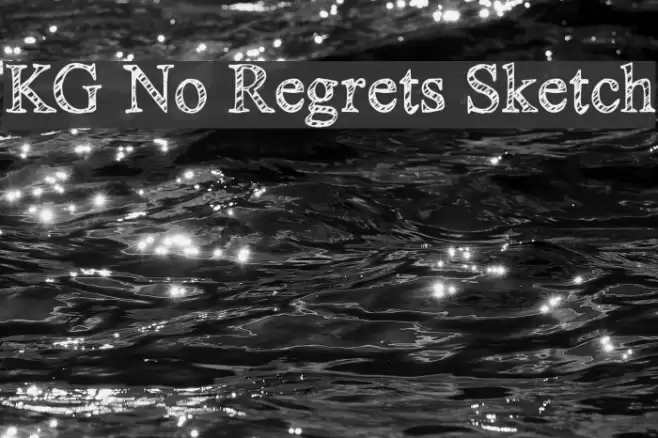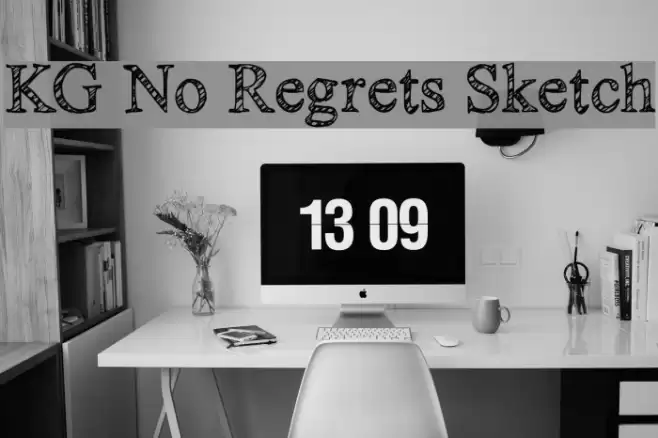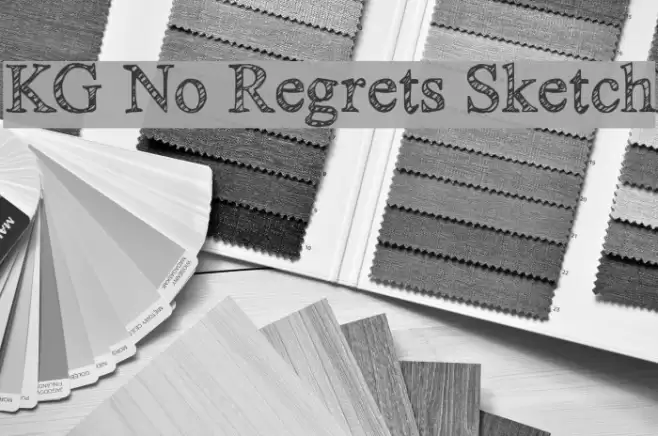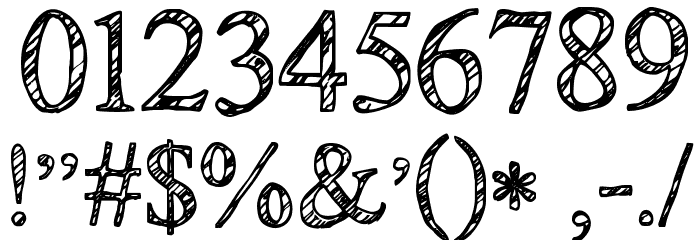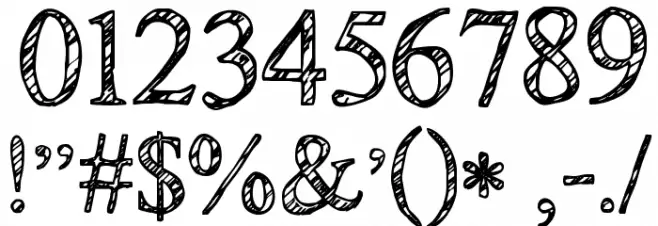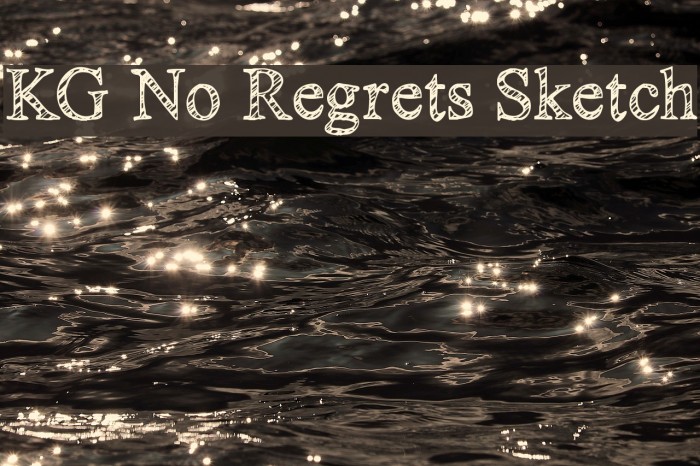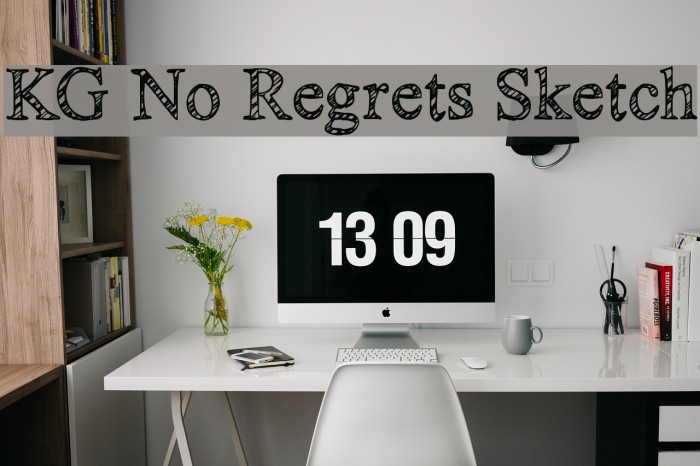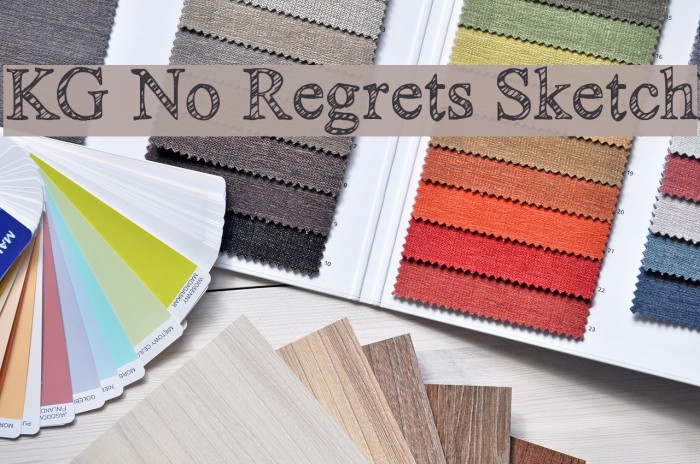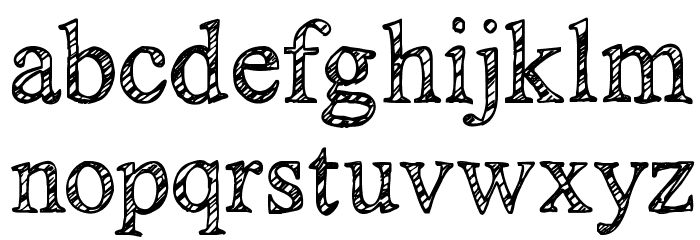
KG No Regrets Sketch Font
KG No Regrets Sketch Description
This font features a playful, hand-drawn sketch style that gives it a unique and artistic appearance. Each character is outlined with a bold stroke and filled with diagonal lines, creating a textured, shaded effect reminiscent of pencil sketches. The uppercase and lowercase letters maintain a consistent style, with slightly irregular lines that add to the hand-crafted feel. Numbers and special characters follow the same design, ensuring a cohesive look across all elements. The font's whimsical and informal nature makes it ideal for creative projects that require a personal touch.
A playful, hand-drawn sketch font with textured, shaded characters from Uncategorized fonts.
- Proposed Projects: Ideal for children's book covers, greeting cards, artistic posters, and DIY craft projects.
- Use Case: Headlines, Logos, Creative projects